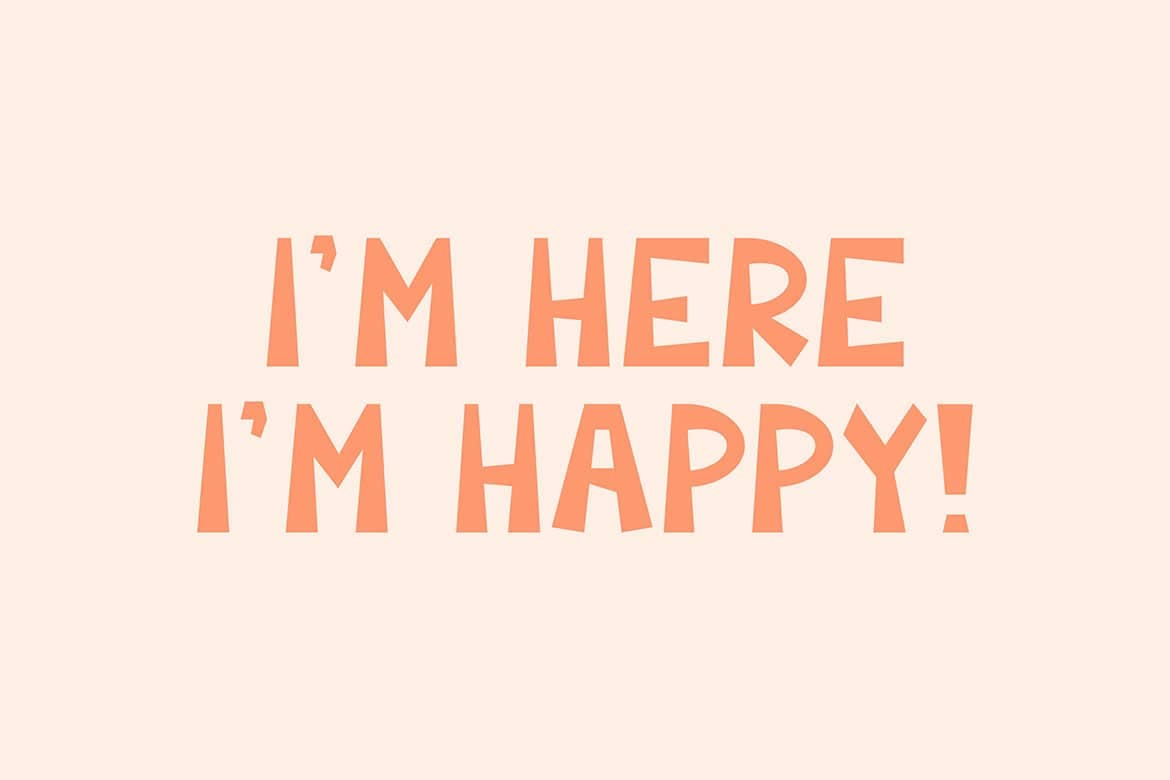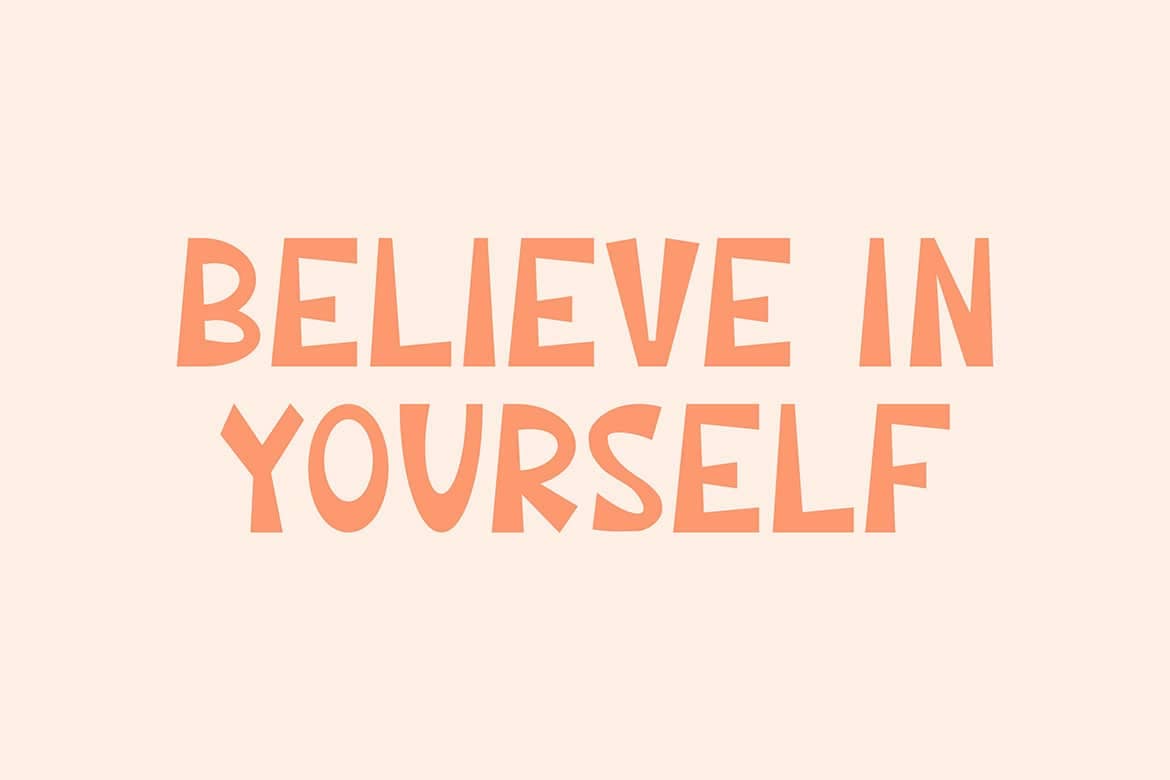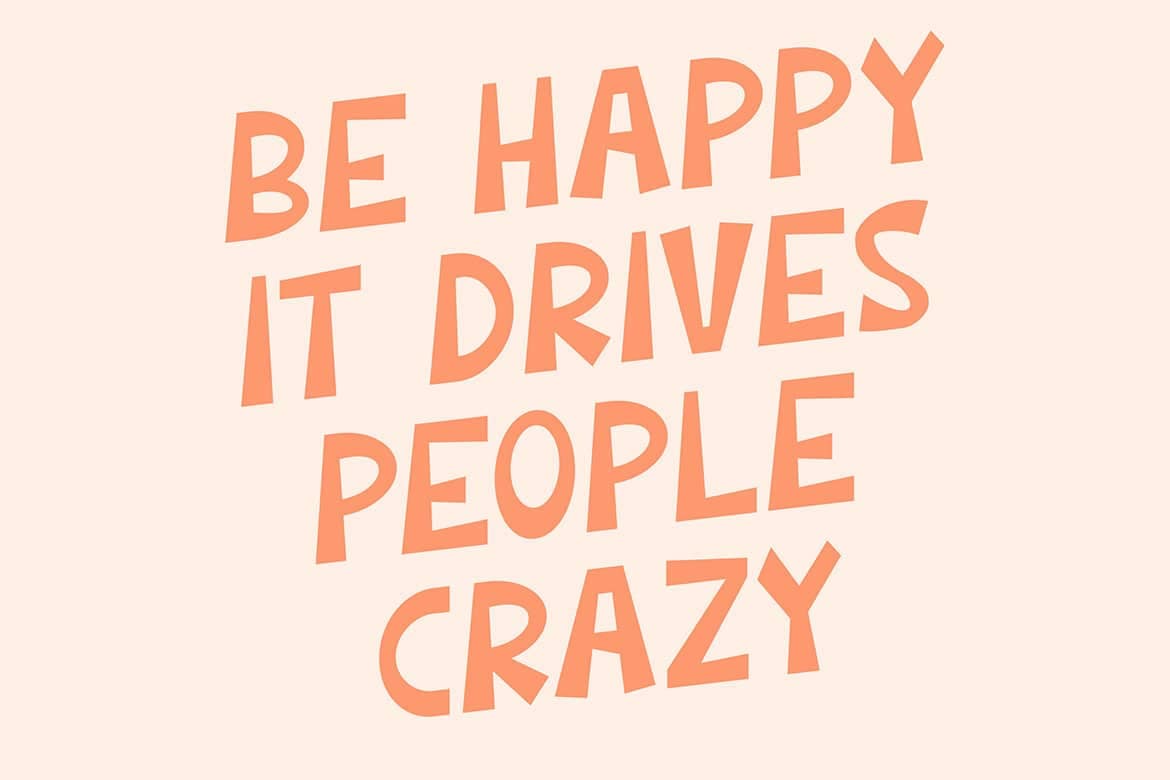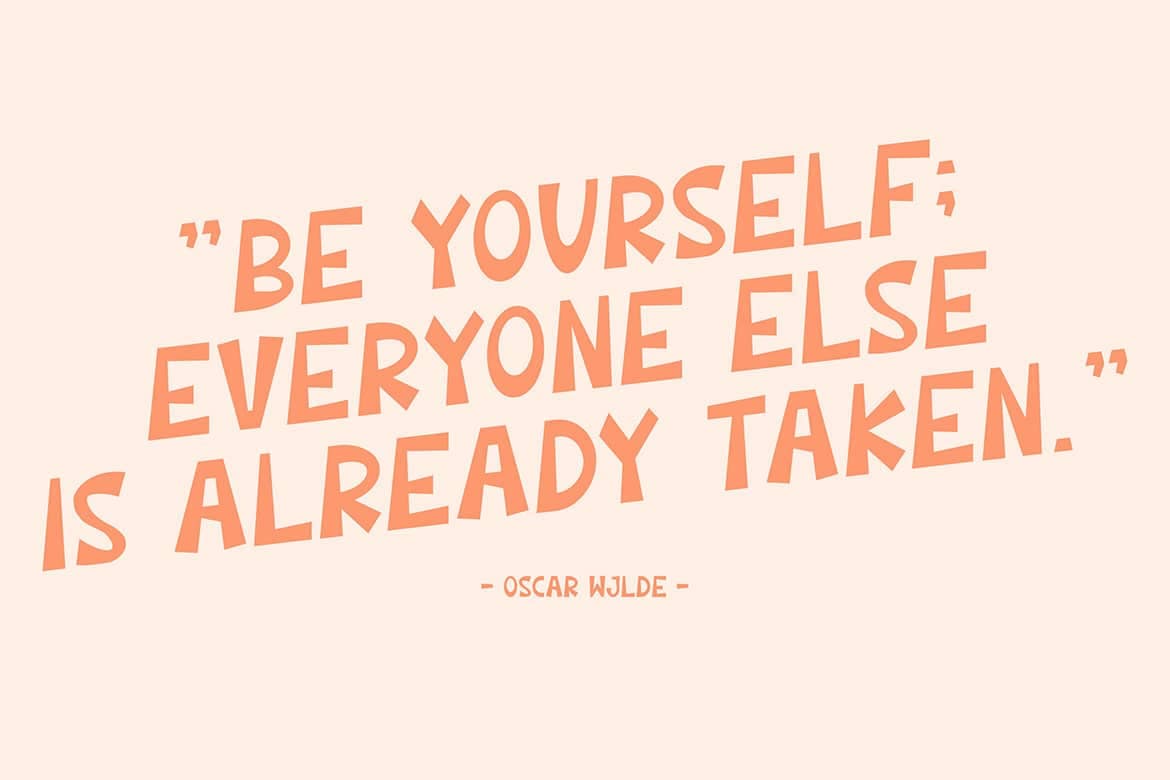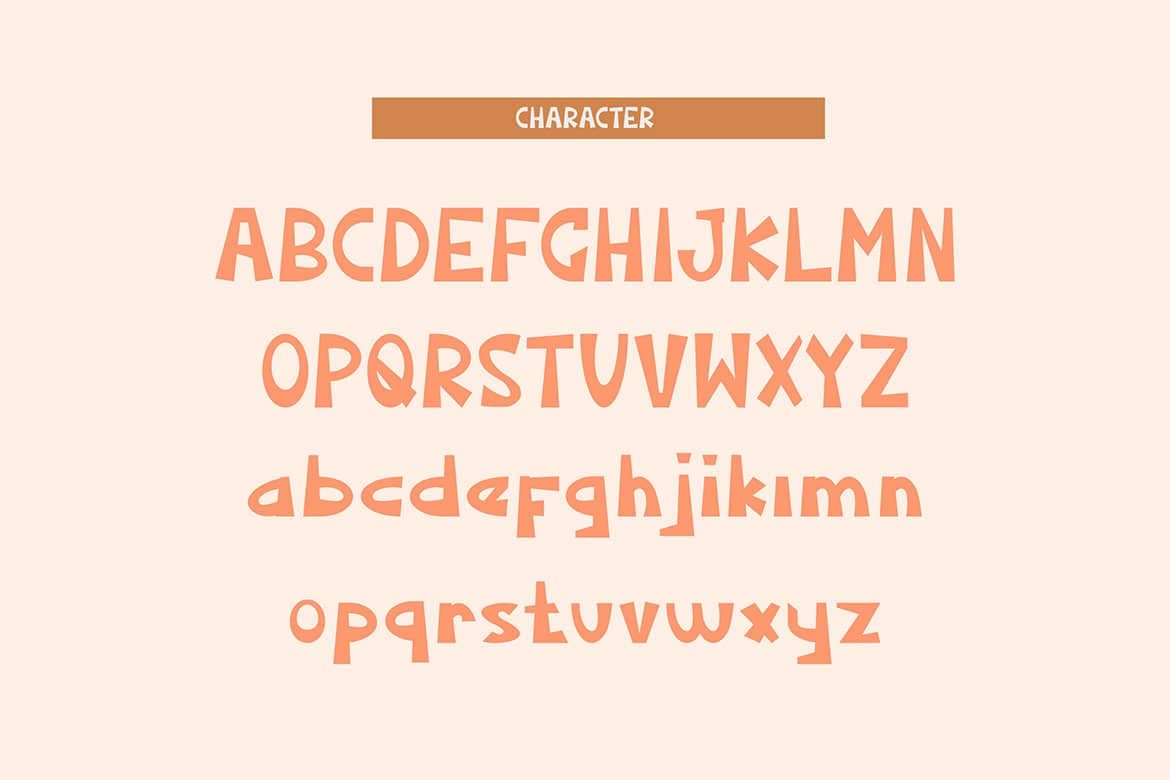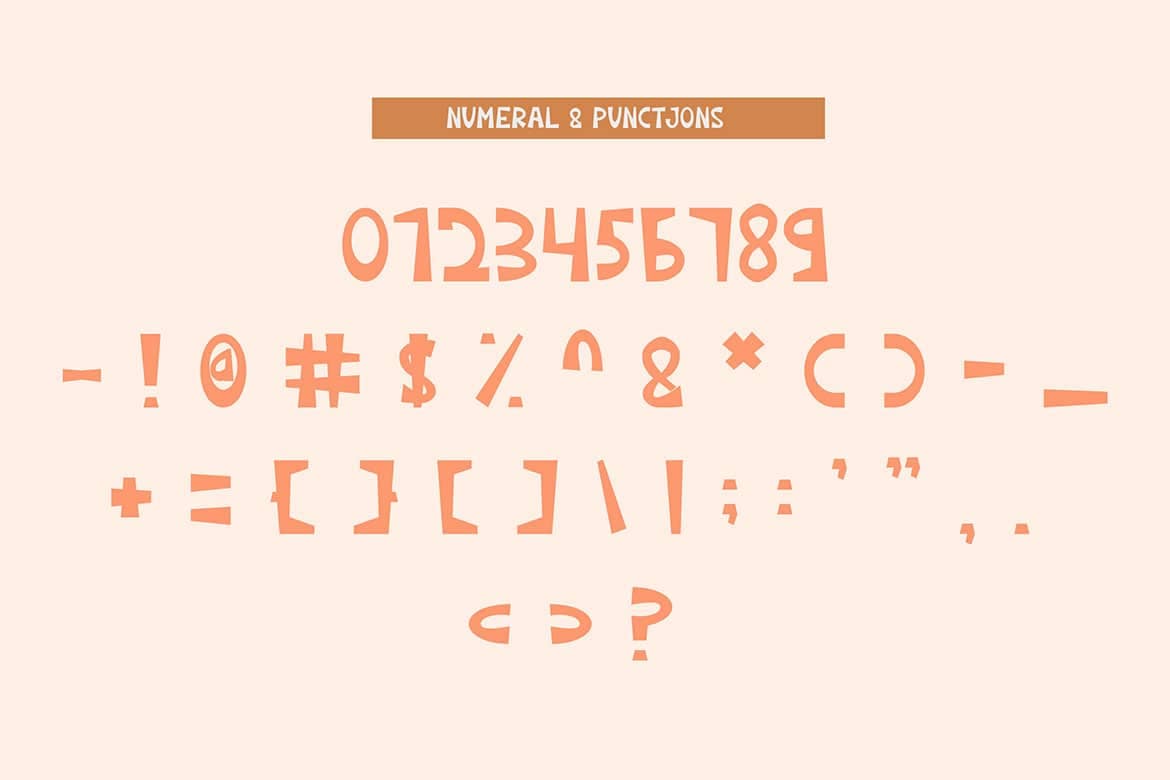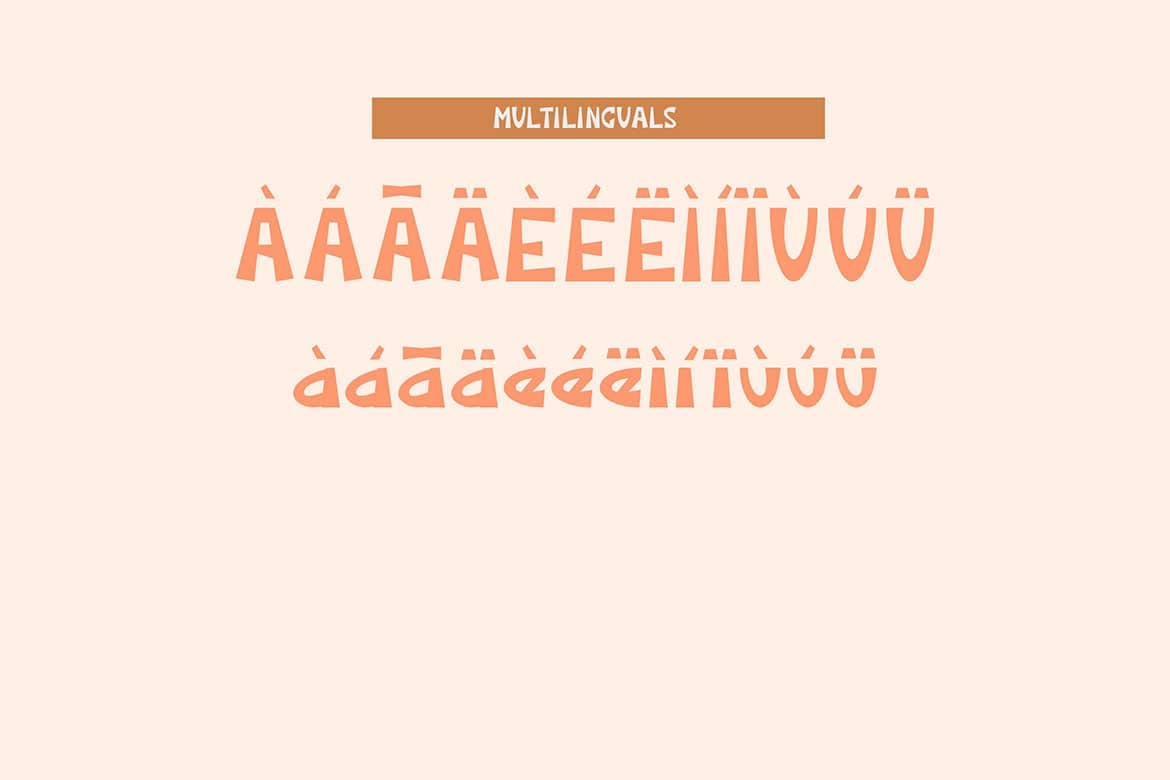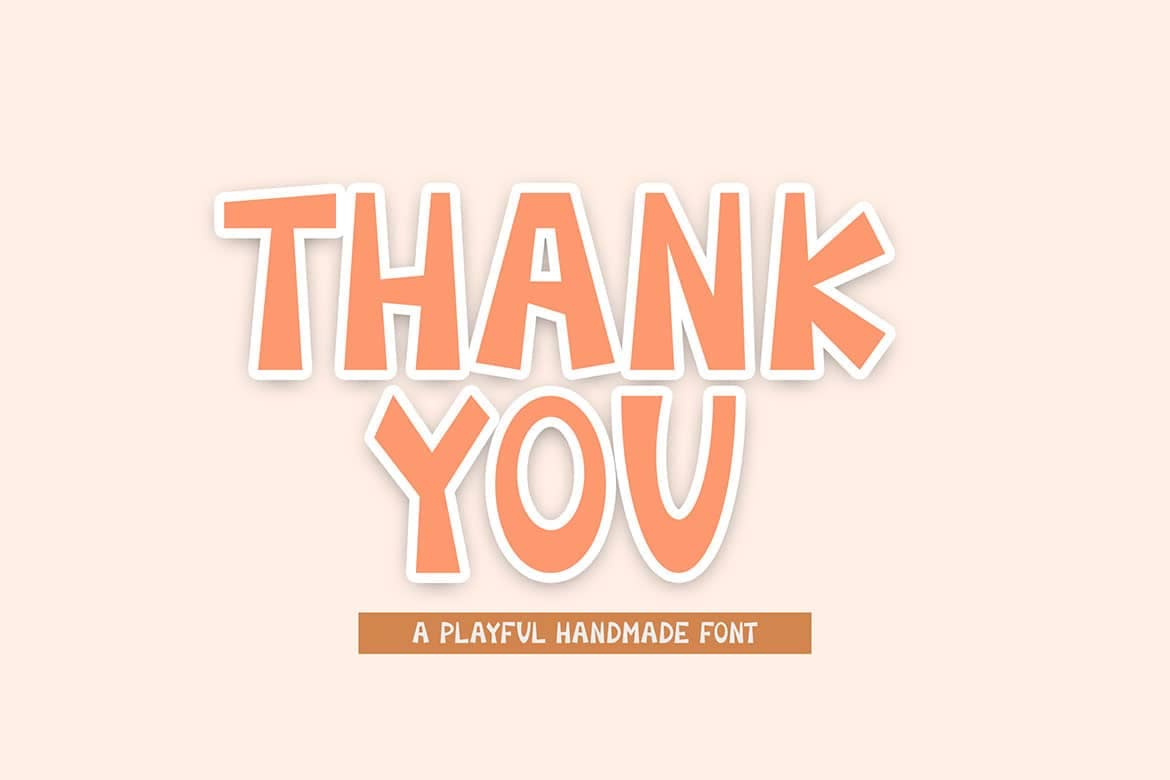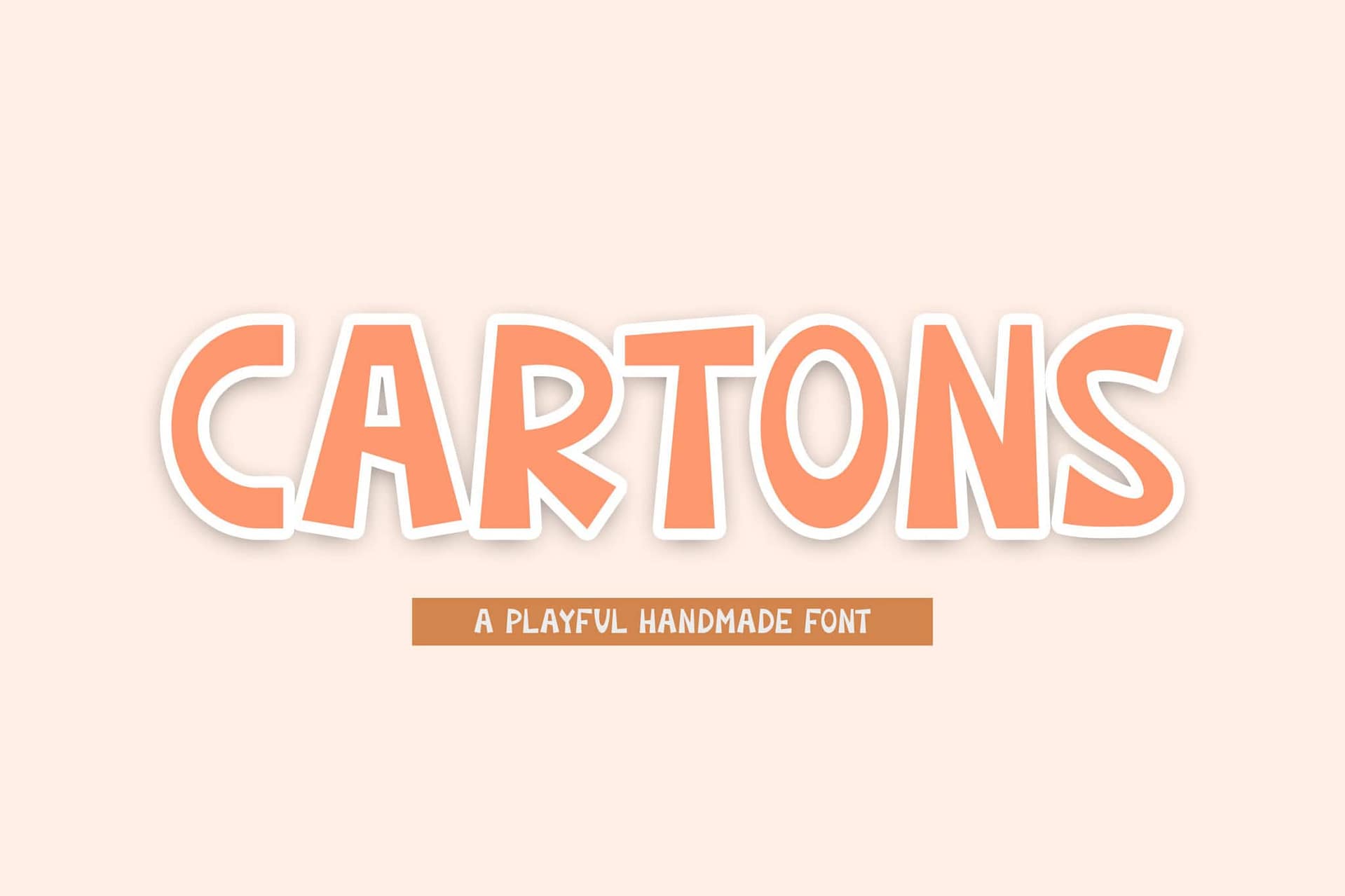
Cartons is a playful handwritten font.ย Great font for fashion, apparel projects, signature, album cover, logo, branding, magazine, social media, & advertisements, but also works great for other projects.